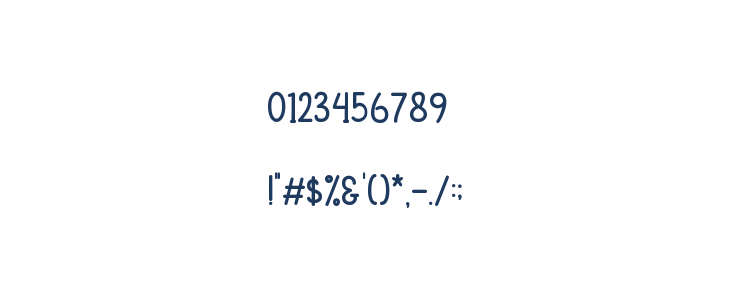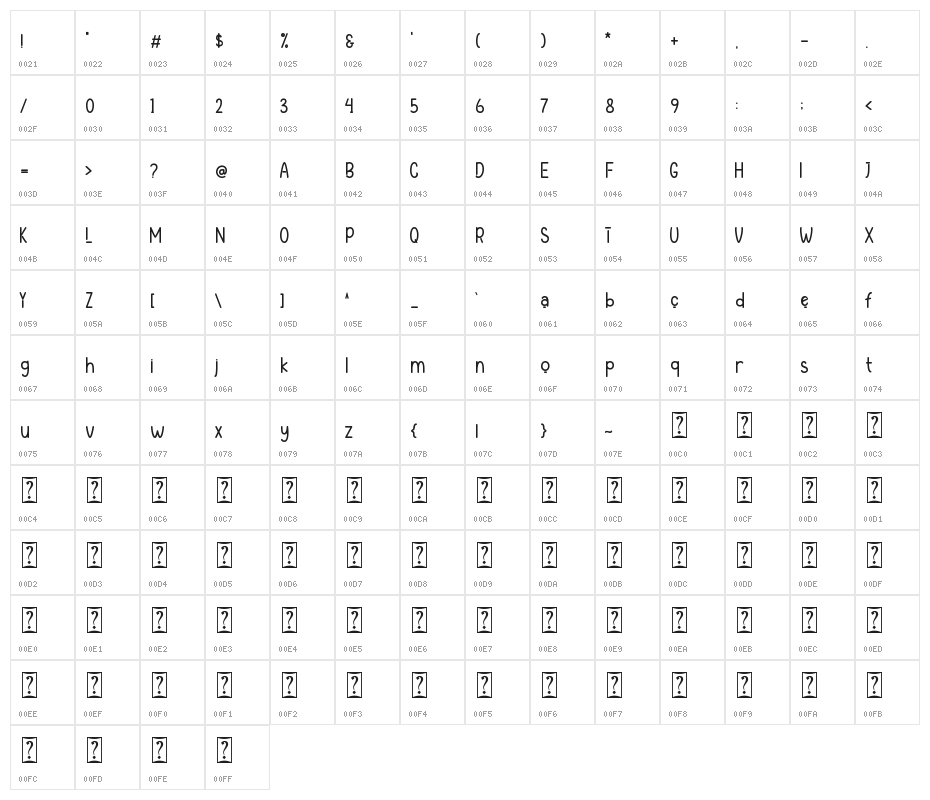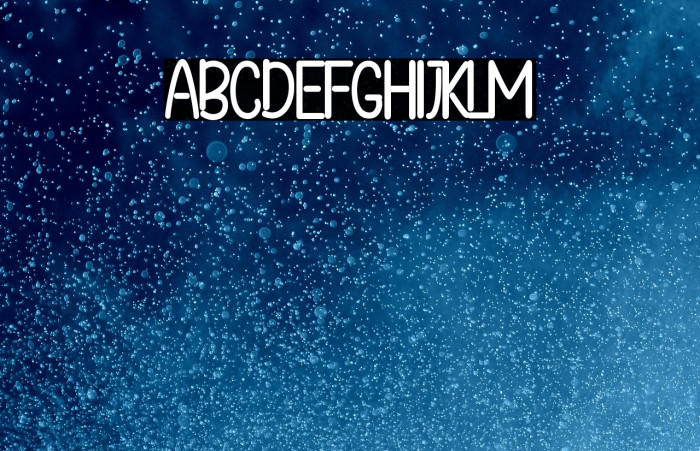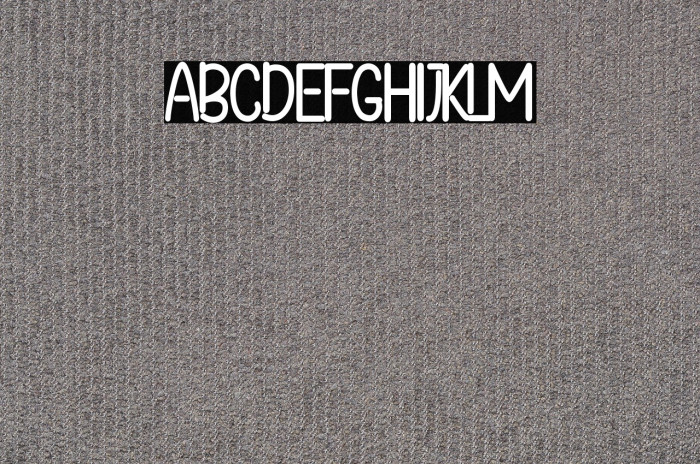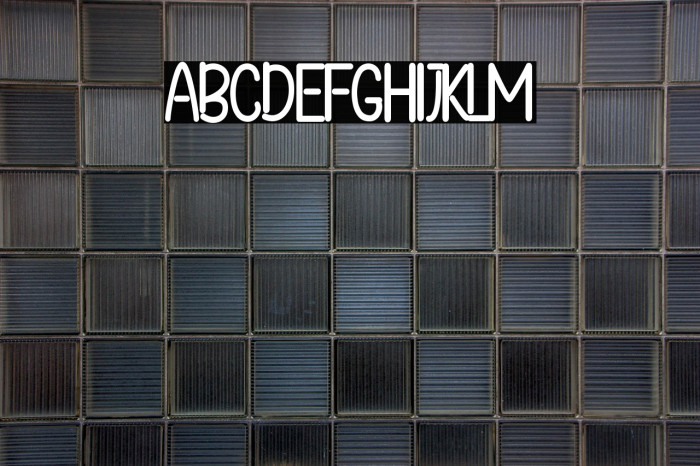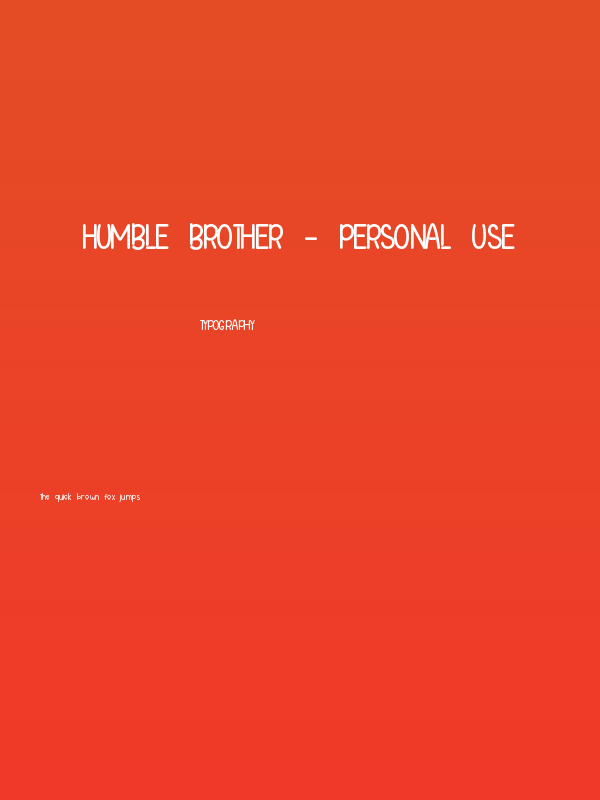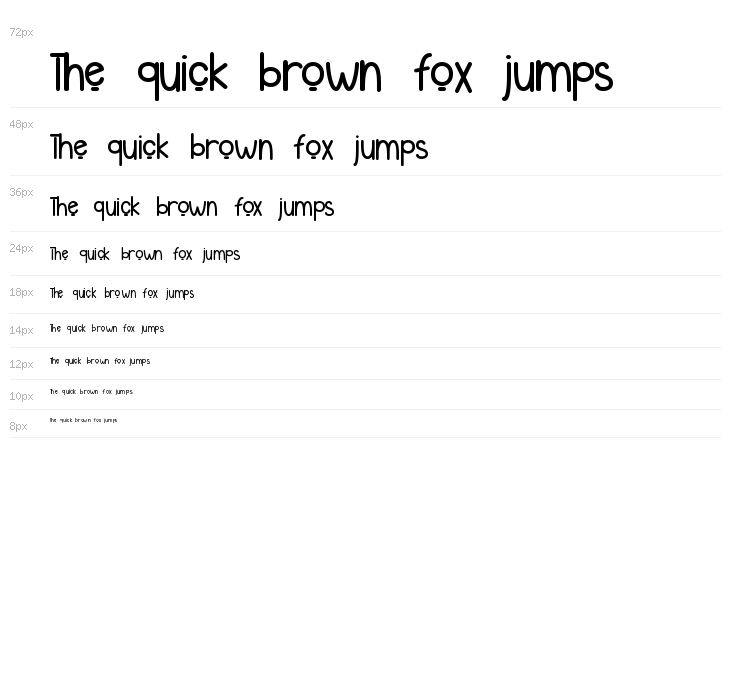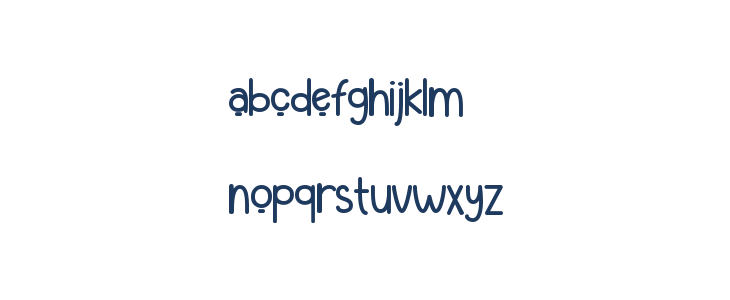
Humble Brother - Personal Use Font
Humble Brother - Personal Use Description
This font exhibits a playful and casual style, characterized by its rounded and slightly irregular letterforms. The uppercase letters maintain a consistent height, while the lowercase letters have a whimsical touch with some characters featuring unique flourishes, such as the lowercase 'e' and 'g'. The numerals are bold and clear, making them easily readable. Special characters are well-integrated, maintaining the overall playful aesthetic. The font's design is approachable and friendly, making it suitable for projects that aim to convey warmth and creativity.